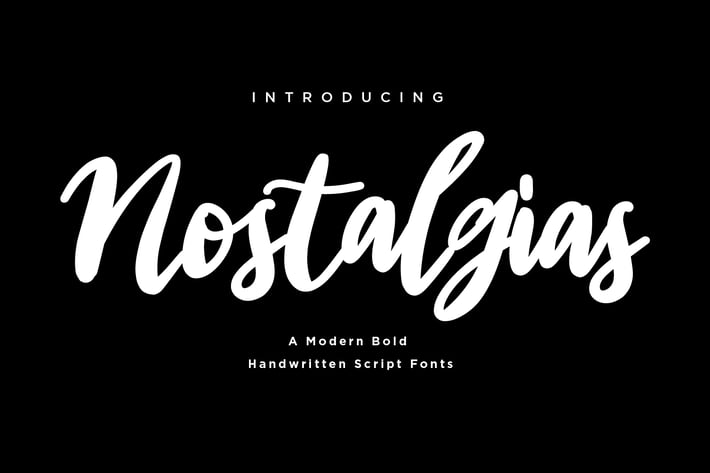
Nostalgias - Handwritten Script fonts
Nostalgias is a Handwritten Script font, will be suitable for any projects such as branding, promotional ads, quotes design, merchandise, social media and much more. make your work or your business to high level!!! special events, and all your other lovely projects that need beautiful handwriting taste.
- Uppercase & Lowercase
- Numerals
- Punctuations (OpenType Standard)
- Accents (Multilingual Characters)